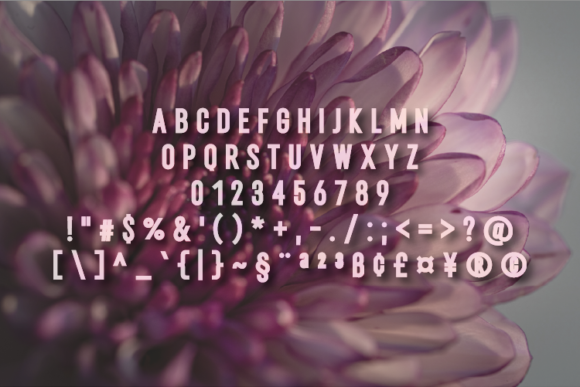
The Perfect Font for Your Next Design Project
Have you ever been stuck on a design project, staring at a blank canvas, searching for the perfect font to bring your vision to life? We’ve all been there. For designers, finding the right font can be a game-changer. It’s the difference between a design that screams “I’m trying too hard” and one that exudes elegance and sophistication.
Enter the Beltran Font, a stunning sans serif typeface designed to elevate your designs to new heights. Whether you’re creating a logo, branding materials, or packaging design, Beltran Font is the perfect choice. Its clean lines and modern aesthetic make it a versatile and timeless choice that will never go out of style.
As a designer, you know that the right font can make all the difference in conveying your message and creating an emotional connection with your audience. The Beltran Font is a valuable addition to any designer’s toolkit, and we’re excited to share its unique features and benefits with you.
Beltran Font Key Features
- Font Family: Beltran is a sans-serif font family designed for digital use.
- Font Size: Beltran is available in various font sizes, including 14, 18, 24, and 36 point sizes.
- Resolution: Optimized for high-resolution displays, making it suitable for use on devices with a resolution of 300 DPI or higher.
- Unique Characteristics: Beltran features a clean and modern design, with a focus on legibility and readability in digital environments.
Designer Review: Beltran Font
Overall, I’d say the Beltran Font is a solid addition to any designer’s toolkit, but it has its strengths and weaknesses. Let’s dive in!
- Unique and elegant aesthetic: The Beltran Font has a distinctive, sophisticated look that’s perfect for high-end branding or luxury packaging.
- Great for long-form text: Despite its elegant appearance, the font is surprisingly legible at larger sizes, making it a great choice for body text or headlines.
- Comprehensive font family: Beltran includes a range of weights and styles, from light to bold, which gives designers a lot of flexibility when it comes to creating visual hierarchies.
- Not ideal for body text at smaller sizes: While the font is great for larger sizes, it can become difficult to read at smaller sizes, which may limit its use for body text.
- Lack of italics: Unfortunately, the Beltran Font doesn’t include italics, which can make it harder to create emphasis or add visual interest to text.
The Beltran Font is a great choice for designers who want to add a touch of elegance and sophistication to their projects. While it has some limitations, its unique aesthetic and comprehensive font family make it a solid addition to any designer’s toolkit.
Tips for Getting the Most Out of Beltran Font
1. Use Beltran Font in combination with other modern fonts to create a cohesive design.
2. Experiment with different font sizes and styles to add visual interest to your design.
3. Use Beltran Font in headings and titles to create a strong visual hierarchy.
Beltran Font is ideal for:
1. Creating modern and elegant designs.
2. Branding and logo design.
3. Creating high-end graphics and illustrations.
Alternatives to Beltran Font for Designers
The Great Vibes Font is a modern, elegant script font that is perfect for creating a luxurious and sophisticated look. It is ideal for use in branding, packaging, and editorial design. Great Vibes Font has a more refined and delicate feel compared to Beltran Font, making it suitable for applications that require a touch of class and sophistication.